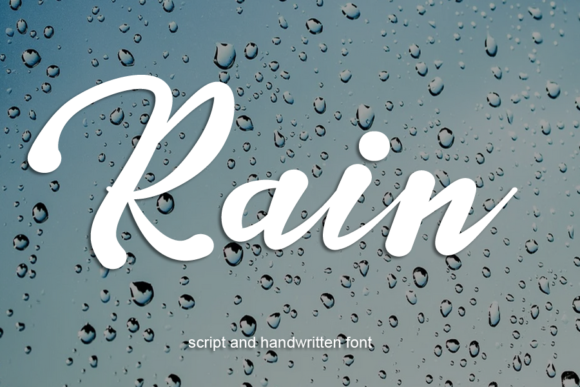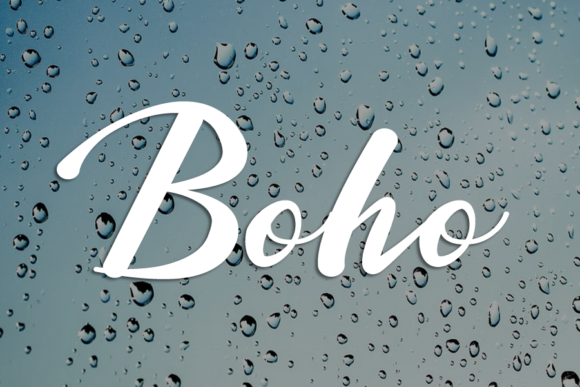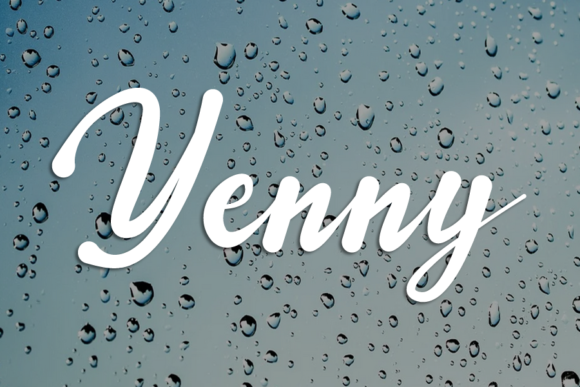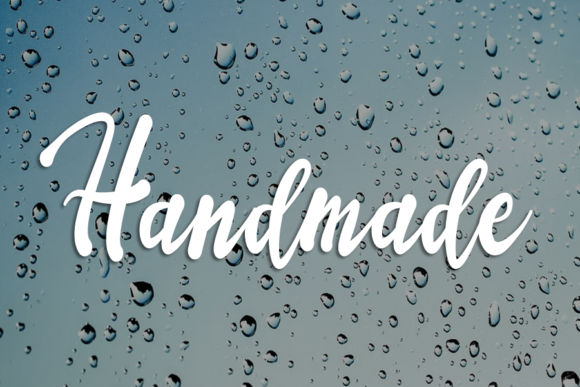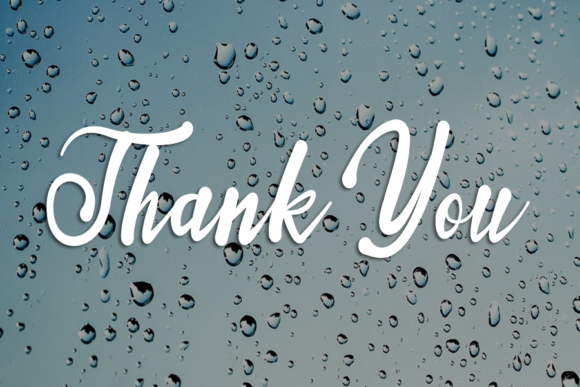
Rain Font
About Rain Font
Rain is a captivating handwritten script font that effortlessly captures the essence of classic calligraphy. Its smooth and flowing strokes bring an air of elegance and sophistication to a variety of design projects, making it a perfect choice for enhancing the beauty of your creations.
Greeting cards become even more heartfelt and special when adorned with the graceful curves of Rain. Whether it’s a birthday card, a thank-you note, or a heartfelt message, this font adds a touch of timeless charm that resonates with the recipient. The delicate lines and artistic details of Rain elevate your words, making them stand out and leaving a lasting impression.
Wedding invites take on a new level of romance with Rain. The font’s classic calligraphy style adds a touch of luxury and refinement to wedding stationery, setting the tone for a memorable and elegant celebration. From save-the-date cards to formal invitations, Rain’s graceful script adds an extra layer of beauty to the wedding experience.
Rain is not just a font—it’s an opportunity to infuse your designs with a sense of warmth and creativity. Its versatility allows it to be used for a wide range of projects beyond cards and invitations. From inspirational quotes and wall art to social media graphics and branding materials, Rain’s classic calligraphy style brings a timeless appeal to every piece.
For artists and designers looking to add a touch of sophistication to their work, Rain is a must-have tool. Its smooth and flowing lines make it easy to create stunning logos, branding materials, and promotional items. The font’s ability to convey both elegance and approachability makes it a versatile choice for various industries and styles.
Incorporating Rain into your design projects is like adding a drop of elegance and charm. Its classic calligraphy style enhances the visual appeal of your creations, whether they’re heartfelt messages, wedding invitations, or branding materials. Elevate your designs to new heights by embracing the timeless beauty of Rain.